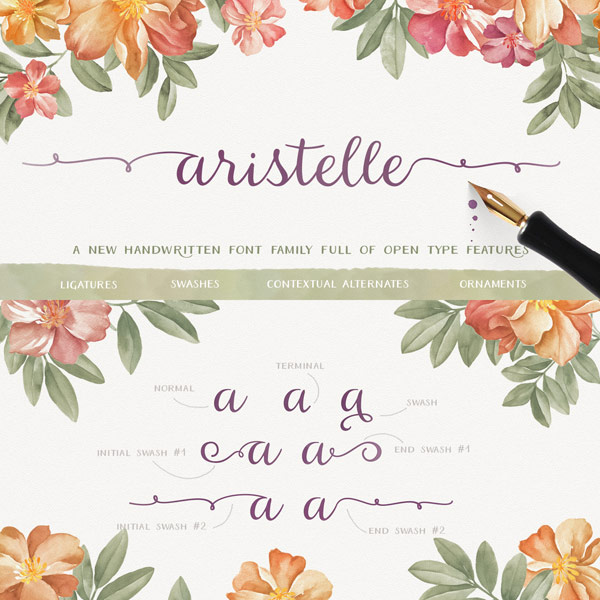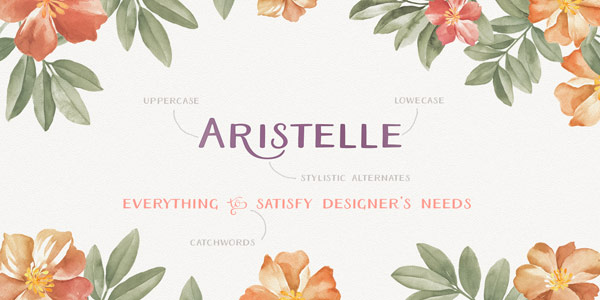
Aristelle, a beautifully hand-lettered script font with lots of Open Type features.
Type designer Elena Genova of foundry My Creative Land has released the Aristelle font family in 2015. It’s a nice hand-lettered script font that comes with plenty of Open Type features such as ligatures, countless ornaments, initial and terminal swashes.
The family comprises three styles: a basic script version as well as Aristelle Sans and Aristelle Sans Condensed. With these lovely hand-lettered fonts you can create headlines, titles, and short sections of text in a natural, handmade look. All three styles are available as webfonts and desktop versions.